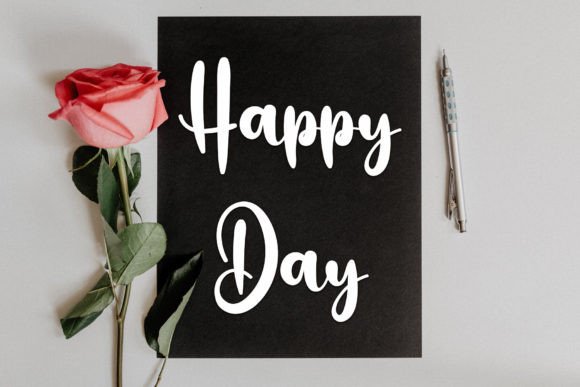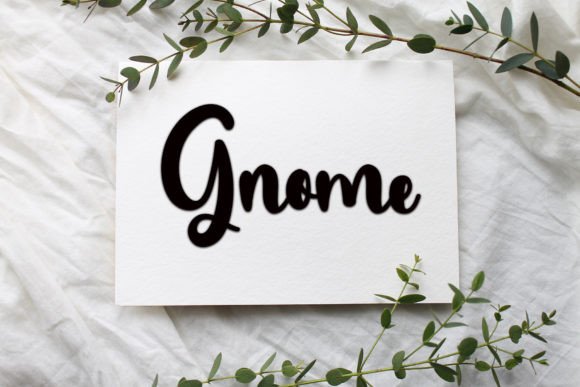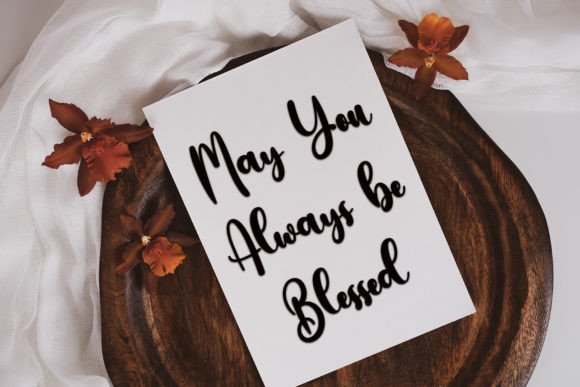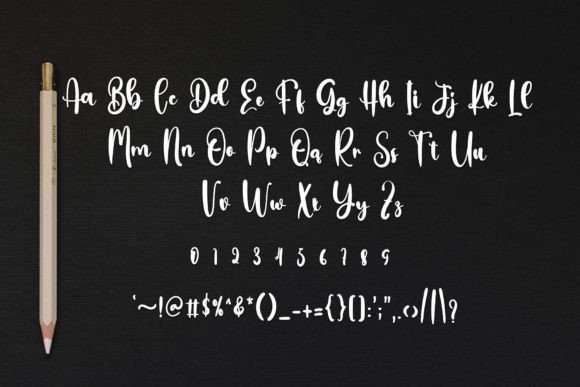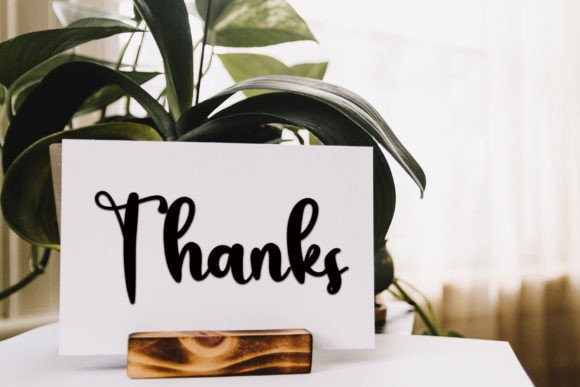
The Magic of Chubby Font: A Holiday Designer’s Best Friend
I still remember the year I was tasked with designing a Christmas card for a client’s family reunion. I had a clear vision of a festive, whimsical design, but I was struggling to find the perfect font to bring it all together. That’s when I stumbled upon Chubby Font, a merry and decorative typeface that captured the spirit of the holiday season. With its enchanting elements and nostalgic flair, it added a touch of magic to my design, and I’ve been a fan ever since.
An Honest Review of Chubby Font
So, what makes Chubby Font so special? Let’s dive into the good stuff and a few quirks I’ve discovered.
- ✨ Festive and merry vibe that’s perfect for holiday designs
- ✅ Whimsical flair that adds a touch of enchantment to your typography
- 🎉 PUA encoded for easy access to glyphs and ligatures
- 📚 Versatile and suitable for various design projects, from greeting cards to gift tags
While Chubby Font is a delightful addition to any design project, there are a few things to keep in mind:
- ⚠️ Limited use outside of holiday-themed projects, as its festive vibe might not fit every design style
- 🤔 May require some experimentation to get the perfect balance of glyphs and ligatures
The Backstory of Chubby Font
Chubby Font was designed by a talented typographer who wanted to capture the magic of the holiday season in a single font. Inspired by vintage Christmas cards and festive decorations, Chubby Font was born. With its unique blend of decorative elements and whimsical flair, it’s become a favorite among designers and crafters alike.
Q: What is PUA encoding, and how does it benefit Chubby Font?
A: PUA (Private Use Area) encoding allows designers to access a wide range of glyphs and ligatures, making it easier to create unique and creative typography. In the case of Chubby Font, PUA encoding provides access to a variety of festive symbols and ornaments.